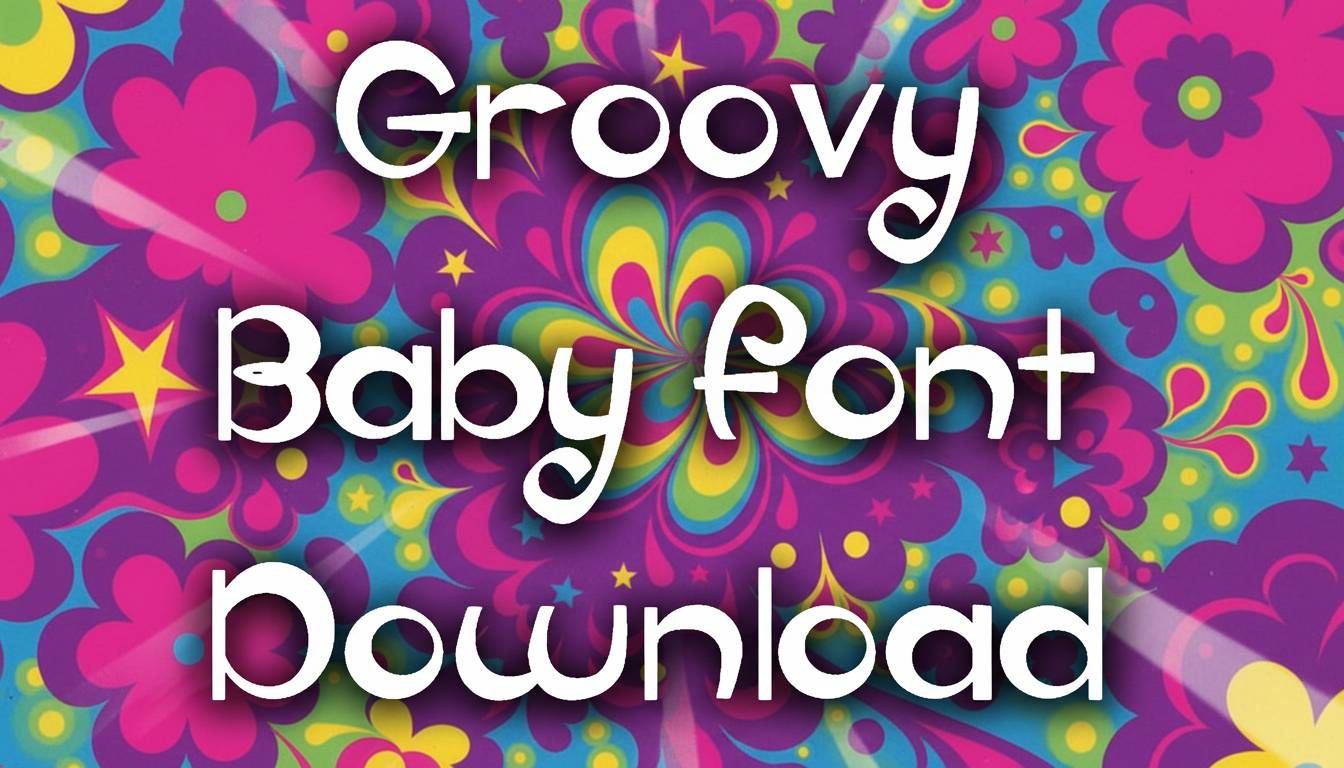
Jessica Darnell designed and released Groovy Baby, a popular retro display typeface, through Darn Design. Drawing heavy inspiration from 1960s and 1970s psychedelic pop culture, the font captures a fun, funky, and nostalgic aesthetic.
It includes 227 characters spanning uppercase, lowercase, numbers, and standard symbols, featuring thick, bulbous letterforms with soft, rounded corners and casual geometries. It mimics hand-drawn poster titles from the disco and hippie eras to give text an instant playful energy, and the designer offers it free for personal use.
Groovy Baby
Groovy Baby is a fancy font created by Jessica Darnell (2013).
- Designer: Jessica Darnell
- Year: 2013 (from the copyright line in the font)
- Glyphs: 227